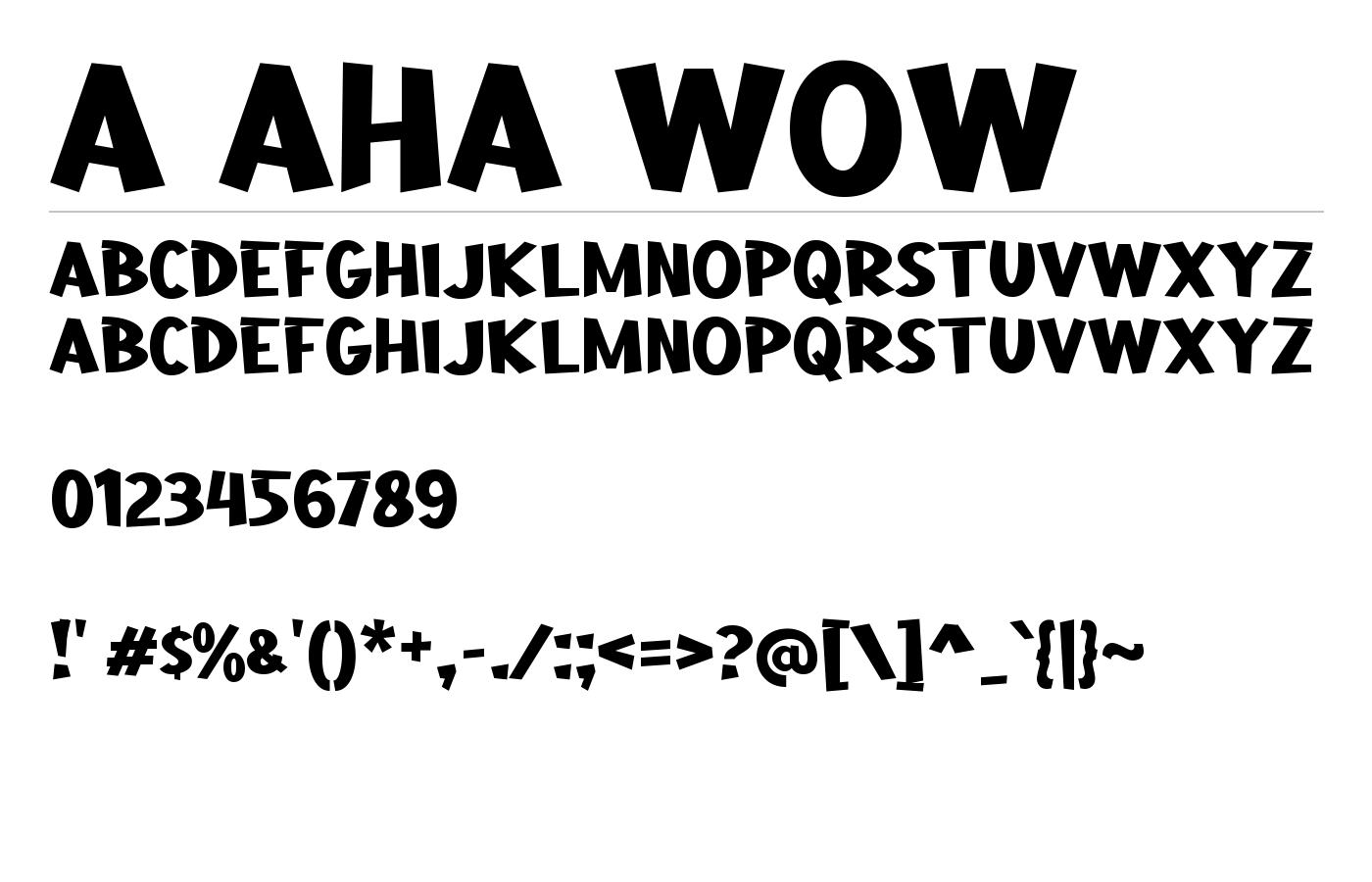
Aha Wow is a bold, playful sans serif font characterized by its irregular, slightly tilted letterforms that create a fun and energetic vibe. Its wide, chunky shapes with uneven heights and quirky details make it perfect for eye-catching headlines, children’s materials, and informal branding that seeks a lively, approachable personality. This font works best where a casual, dynamic feel is desired, adding a sense of joy and spontaneity to any design.
a Aha Wow Font
About a Aha Wow Font